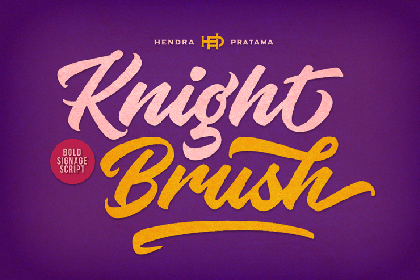
Free Knight Brush Font Demo
Download and enjoy this free knight brush font demo. Cool typeface to showcase your designs in a modern way. Go give some love to Free Design Resources for creating this top-notch free font. Amaze your fellow designers and create stunning designs with this cool font.